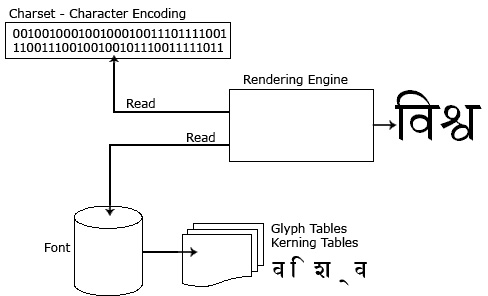
Digital Typography - 1
Understanding Type as Bits
Digital Type: Fonts
The advent of digital typography can be attributed to the introduction of the Macintosh personal computer by the Apple Corporation in 1984. The conversion of text from metal to electronic signals was possible in the late-phototypesetting machines. The novel invention here was the development of WYSIWYG (what you see is what you get) editors. Artwork could now be easily manipulated using a graphical interface with the help of a mouse. Commands such as copy, paste, duplicate, undo etc. brought about higher levels of flexibility and efficiency amongst designers. This ease of use and flexibility allowed people of various backgrounds to become designers. Systems that used computers to input, edit, design and publish texts were then called Desktop Publishing (DTP) units. They were called so because, unlike their predecessors these machines could easily fit on a regular desk top. Software development in the later years produced products such as Adobe Photoshop which allowed easy manipulation of images while Adobe InDesign and QuarkXpress were layout programs made for publication design.
Since a new medium was born, two new uses of fonts were seen. Firstly, in their traditional role, fonts that would be set on the computer but their final output was to be print. Secondly, fonts that would be seen only on the screen. Fonts also became sophisticated in the information that they contained. Earlier letter press fonts contained only the visual data (the shape) of the letters and some spacing information. Computer fonts on the other hand, these days contain much more information than their ancestors.
A computer font is a digital data file that can typically contain five kinds of information.
1. Information regarding the name, creator, publisher, copyright information and other identifying features of the font.
2. The actual drawings of the letters and signs that make up the font.
3. Spacing (kerning) information that is used while using the font.
4. Glyph positioning and substitution information that tells the software how the glyphs of the font are positioned or substituted in specific contexts.
5. Hinting information, that specifies how the letters are rendered on low resolutions.
At the fundamental level all data within a computer is stored in the form of numbers. Text is also stored as numbers. This storage requires the text to be encoded.
Encoding is the process in which a number is assigned to a particular character or visual mark. The assigned number is hence called a character code. The scheme which is used to assign codes to a set of characters is called an encoding scheme.
For Example:
In the ASCII (American Standard code for Information Exchange) encoding scheme, the lower case Latin letter ‘a’ is represented by the number (code): 61.  A piece of text is hence represented in a computer as a series of character codes, each code stands for a unique visual mark which can be a letter, symbol or other signs.
While rendering (displaying a piece of text in a particular document) the character codes are read and shown with a particular font. Diagramatic representation of the process is shown below:
Q10. Find as many encoding schemes as you can? Discuss the advantages and disadvantages of each of them. List and discuss 3 encoding schemes for Indian Scripts.
Q11. What encoding scheme would you use when you create a font for an Indian script explain with reasons.
Q12. List and discuss advantages and disadvantages of various typesetting software? What all software besides QuarkXpress and InDesign can be used to design and typeset books. Discuss open source software solutions for the same.